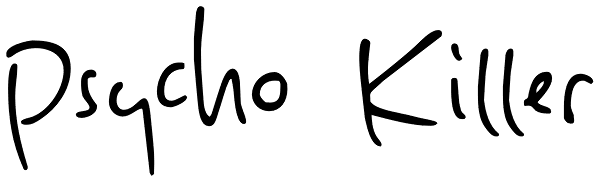
Psycho Killer
Psycho Killer is a song by the Talking Heads. It is also one of my favorite songs, so I figured I'd name a font after it. Psycho Killer is a script font; it contains some messy glyphs and gives the overall impression of a hastily scribbled note...